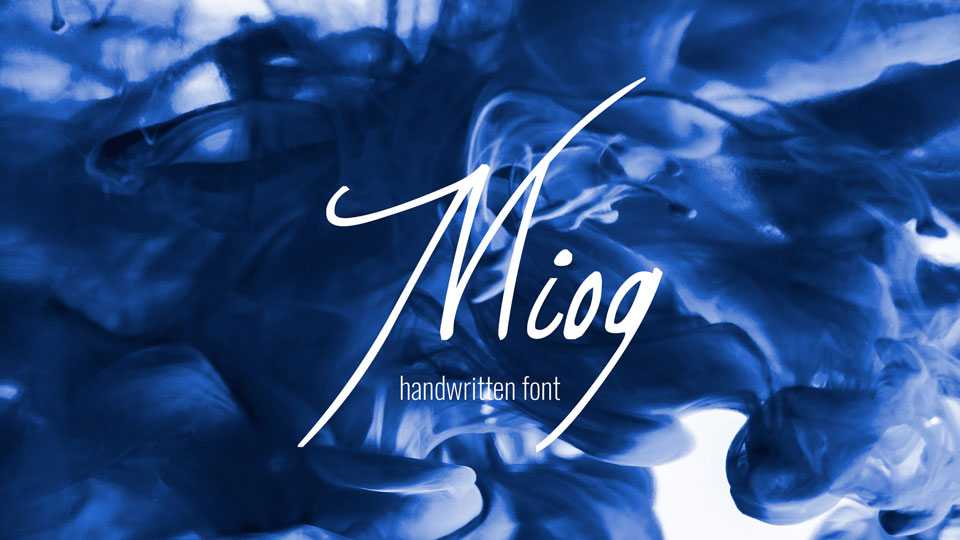
Download Miog font, an amazing handwritten font with a dramatic flow. Great for personal branding, wedding decoration, cards and letters, social media, quotes and other designs with a artistic touch.